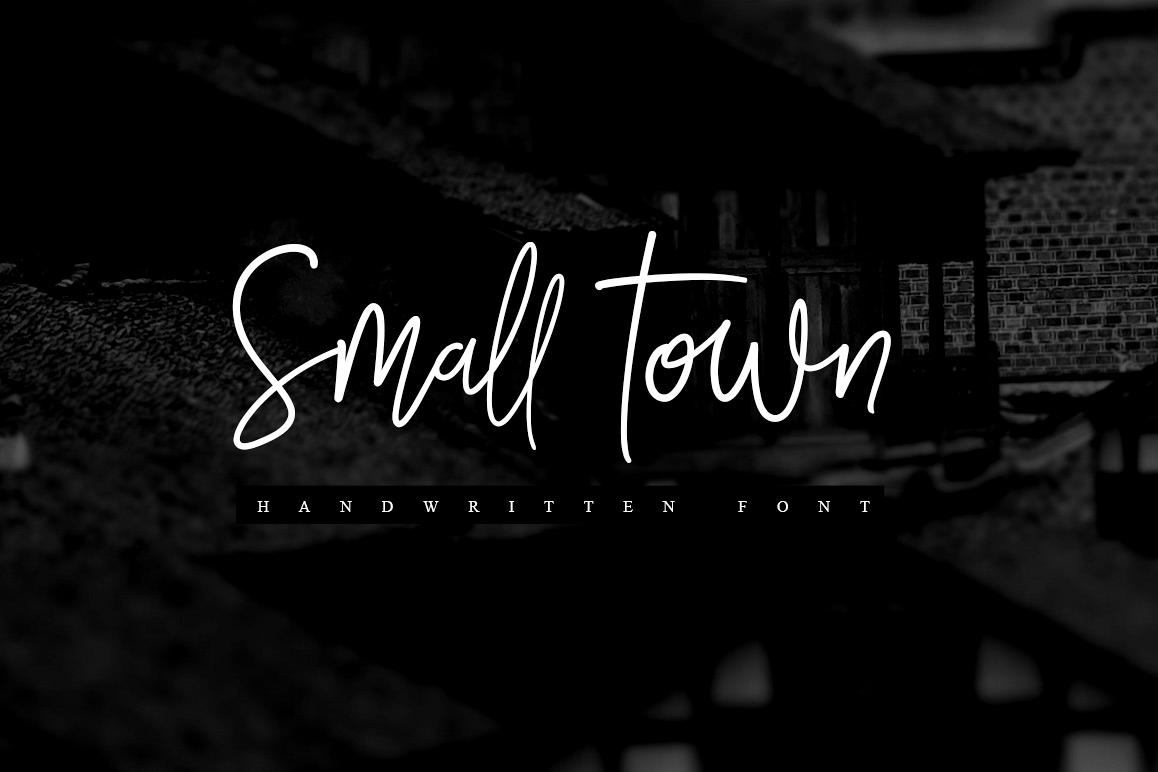
Smalltown handwritten font
Smalltown is a set of handwritten font style, it include rounded and script two fonts, it is smooth, free, smart, can produce dozens of ligature glyph, the combination of a variety of changes.